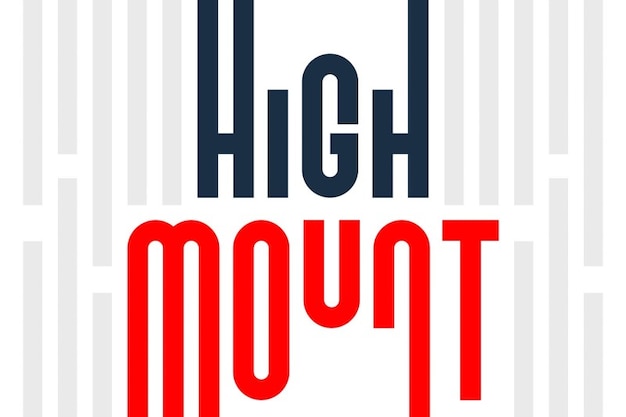
High Mount
High Mount Font
"High Mount" is a sleek, modern font that combines basic design principles with a tech-inspired aesthetic. Its clean lines and geometric shapes offer a contemporary look, making it perfect for digital applications, branding, and tech-focused projects. This versatile font maintains clarity and legibility, providing a sophisticated edge while embodying the essence of modern design.